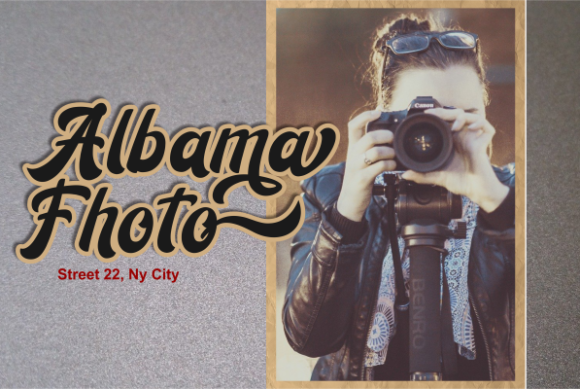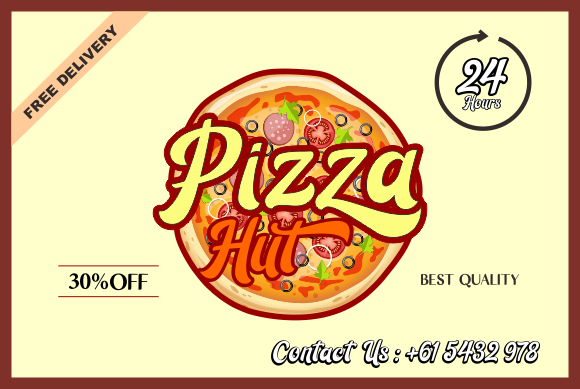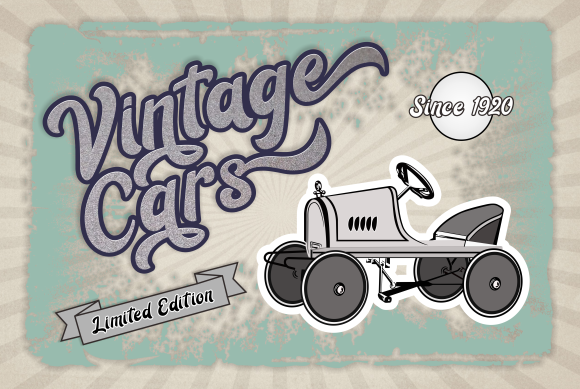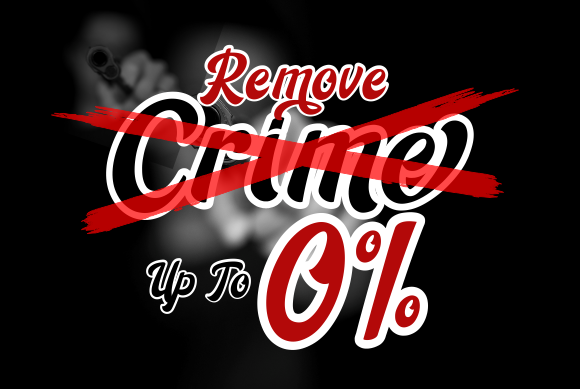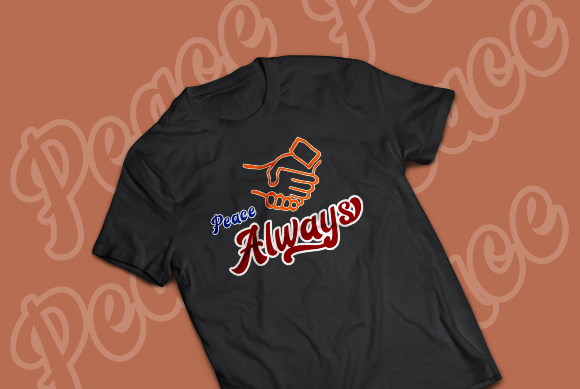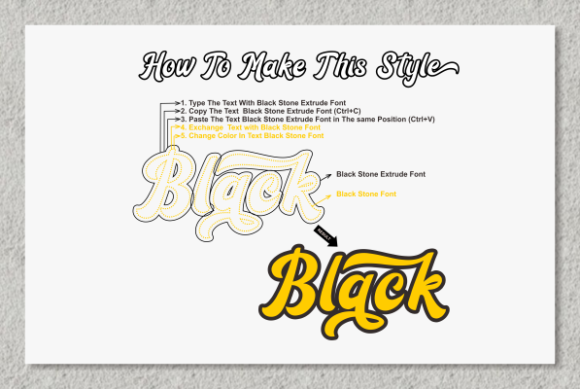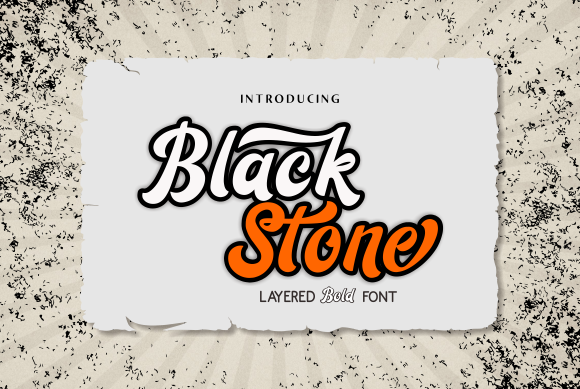
Unleash Your Creativity with Black Stone Font: A Modern Handwritten Marvel
Are you a designer or crafter looking for a font that can add an adventurous and authentic feel to your next project? Look no further than the Black Stone Font, a modern handwritten font that’s taking the design world by storm. In this article, we’ll dive into the features and benefits of Black Stone Font, and explore how it can elevate your designs to the next level.
What is Black Stone Font?
Black Stone Font is a modern handwritten font that’s designed to bring a sense of adventure and authenticity to your designs. With its unique and stylish lettering, this font is perfect for designers and crafters who want to add a personal touch to their projects. Whether you’re working on a logo, branding, packaging, or any other design project, Black Stone Font is the ideal choice.
Key Features of Black Stone Font
So, what sets Black Stone Font apart from other fonts? Here are some of its key features:
• Modern Handwritten Style: Black Stone Font boasts a modern handwritten style that’s both stylish and legible.
• PUA Encoded: This font is PUA encoded, which means you can access all of the glyphs and swashes with ease.
• Adventurous and Authentic Feel: Black Stone Font is designed to add an adventurous and authentic feel to your designs, making it perfect for projects that require a personal touch.
Benefits of Using Black Stone Font
So, why should you choose Black Stone Font for your next design project? Here are some of the benefits of using this amazing font:
• Unique and Stylish Designs: Black Stone Font allows you to create unique and stylish designs that stand out from the crowd.
• Ease of Use: With its PUA encoding, you can easily access all of the glyphs and swashes, making it easy to use and customize.
• Versatility: Black Stone Font is versatile and can be used for a wide range of design projects, from logos and branding to packaging and more.
• Time-Saving: With Black Stone Font, you can save time and effort, as you don’t need to spend hours designing a font from scratch.
Who Can Benefit from Black Stone Font?
Black Stone Font is perfect for a wide range of designers and crafters, including:
• Graphic Designers: Graphic designers can use Black Stone Font to create stunning logos, branding, and marketing materials.
• Crafters: Crafters can use Black Stone Font to add a personal touch to their handmade projects, such as jewelry, crafts, and more.
• Digital Artists: Digital artists can use Black Stone Font to create unique and stylish digital art.